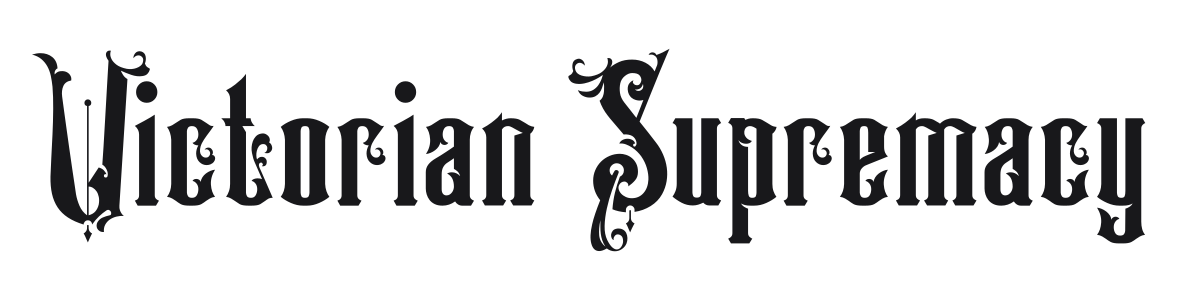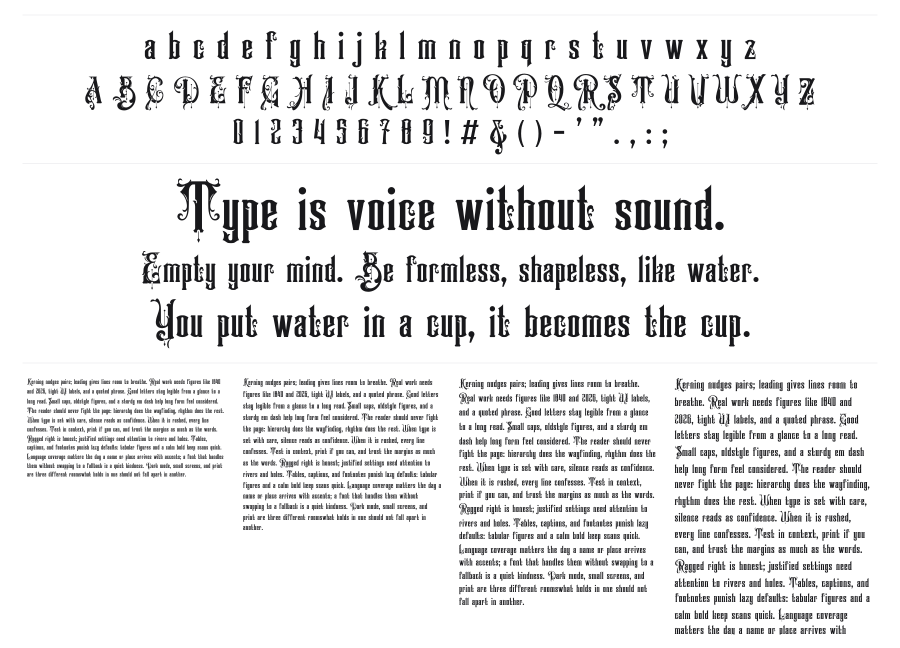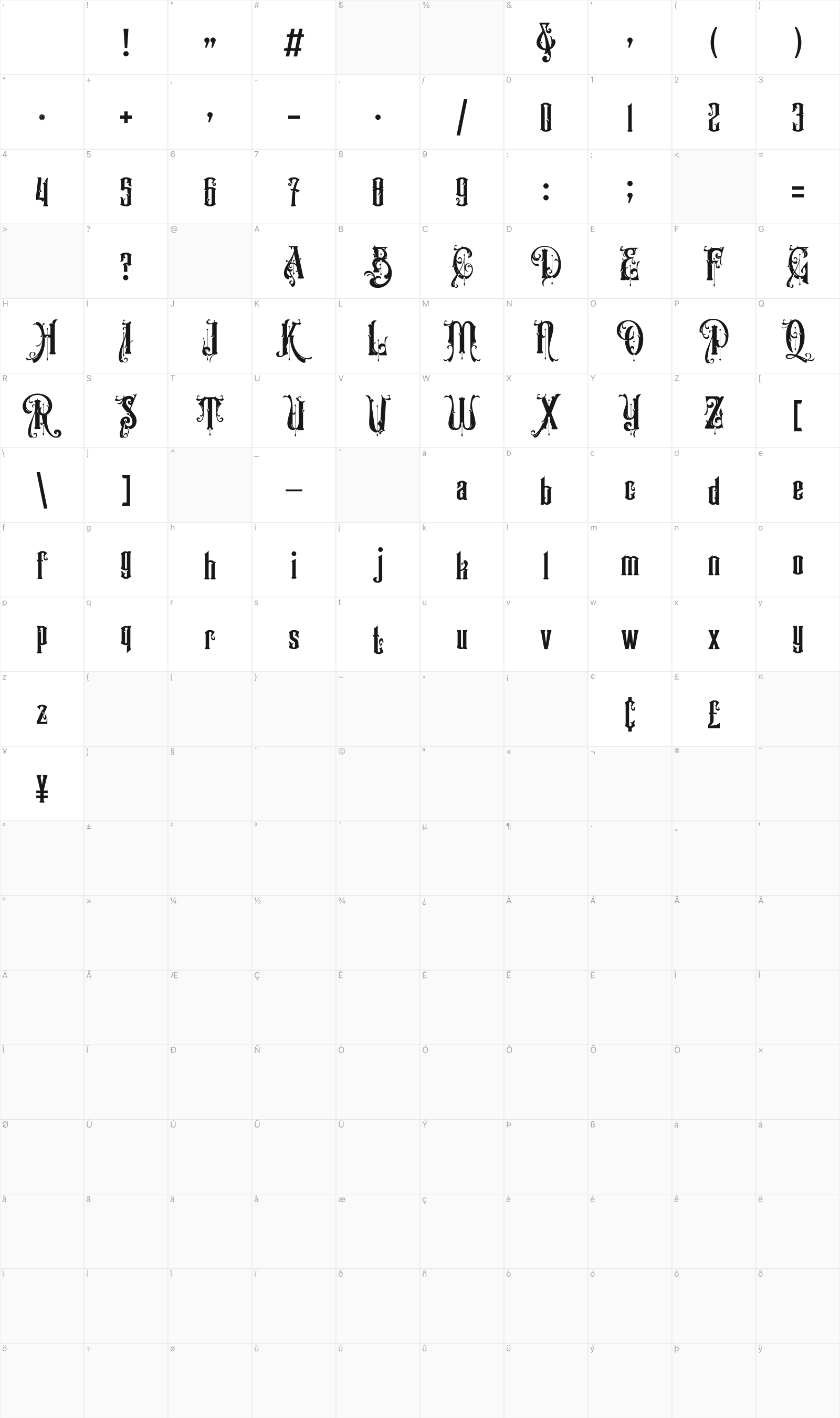
Victorian Supremacy
Victorian Supremacy is a bold gothic blackletter with elaborate curled terminals and ornamental flourishes that amplify the drama of traditional medieval letterforms. The heavy strokes and dense counters give it a commanding presence at large sizes, while the Victorian-era decorative details keep it from feeling like a plain historical revival. It suits band logos, craft beverage labels, fashion editorials, and any headline that needs weight and atmosphere.